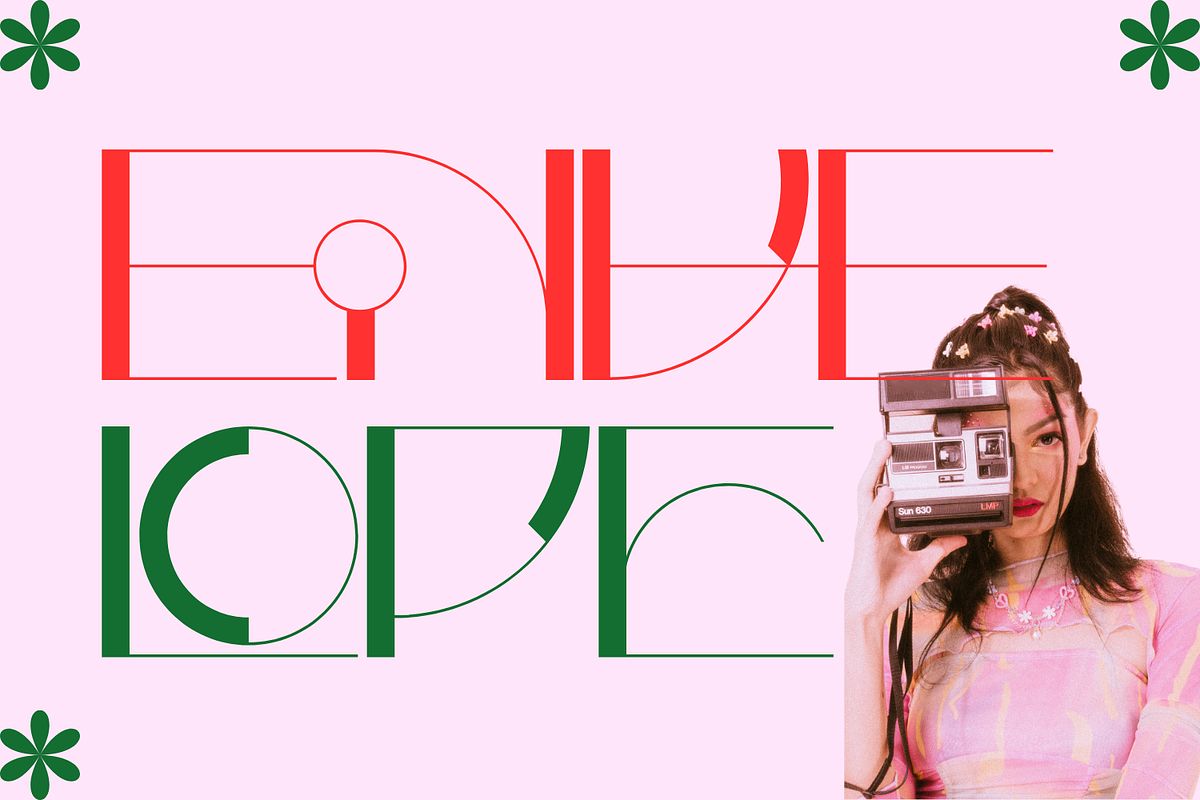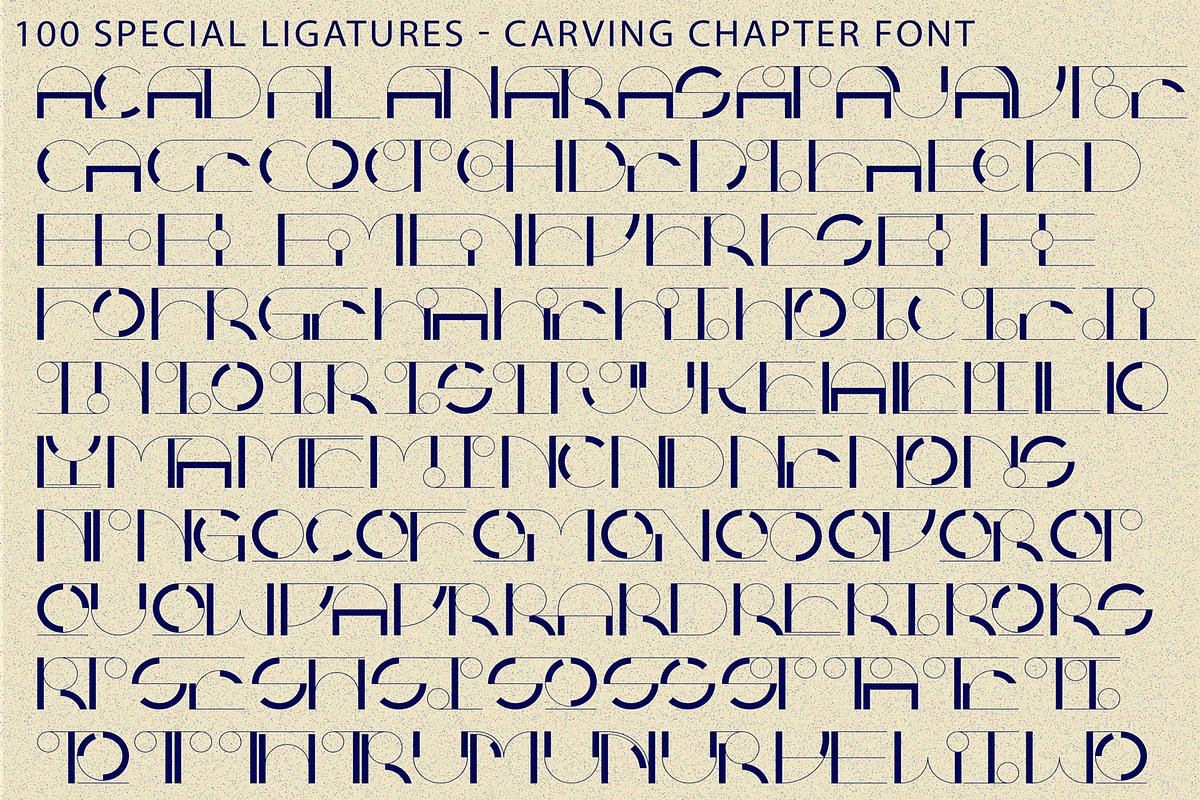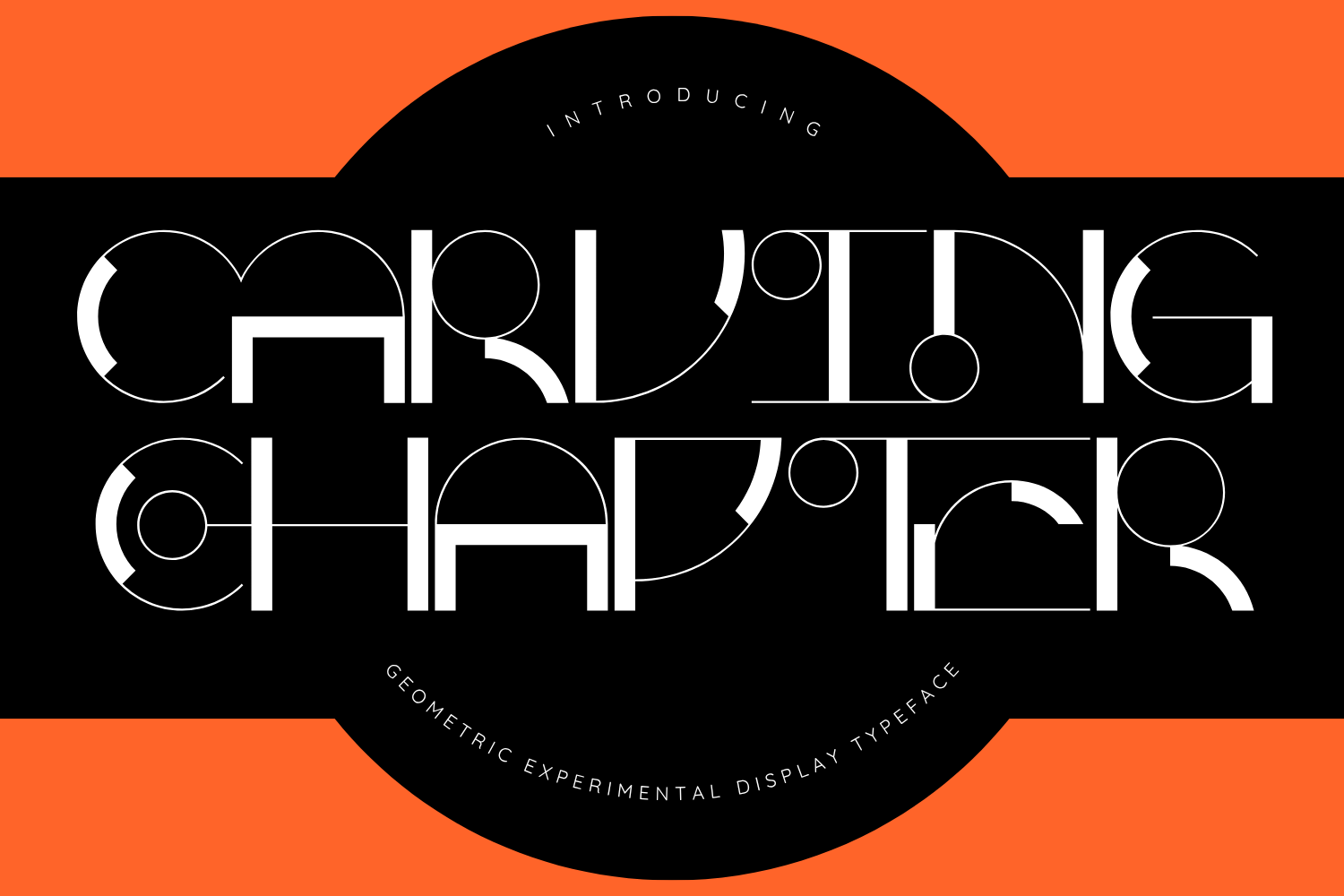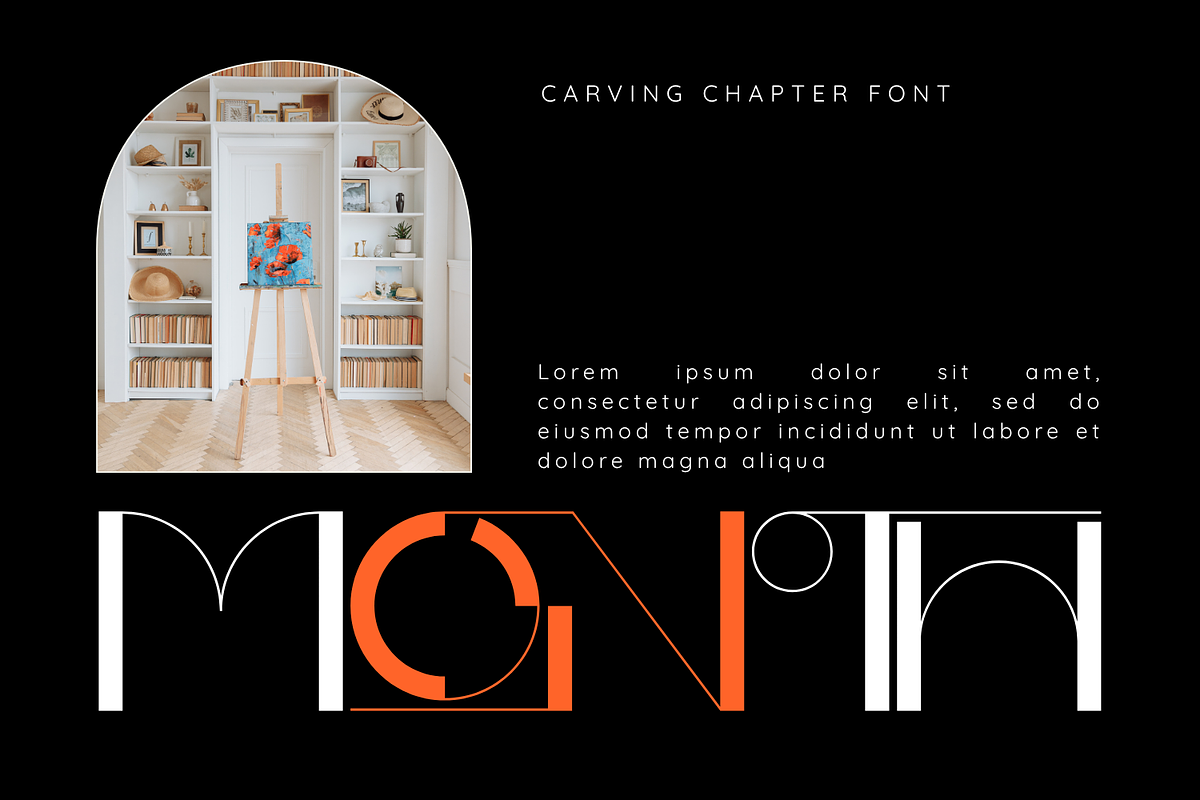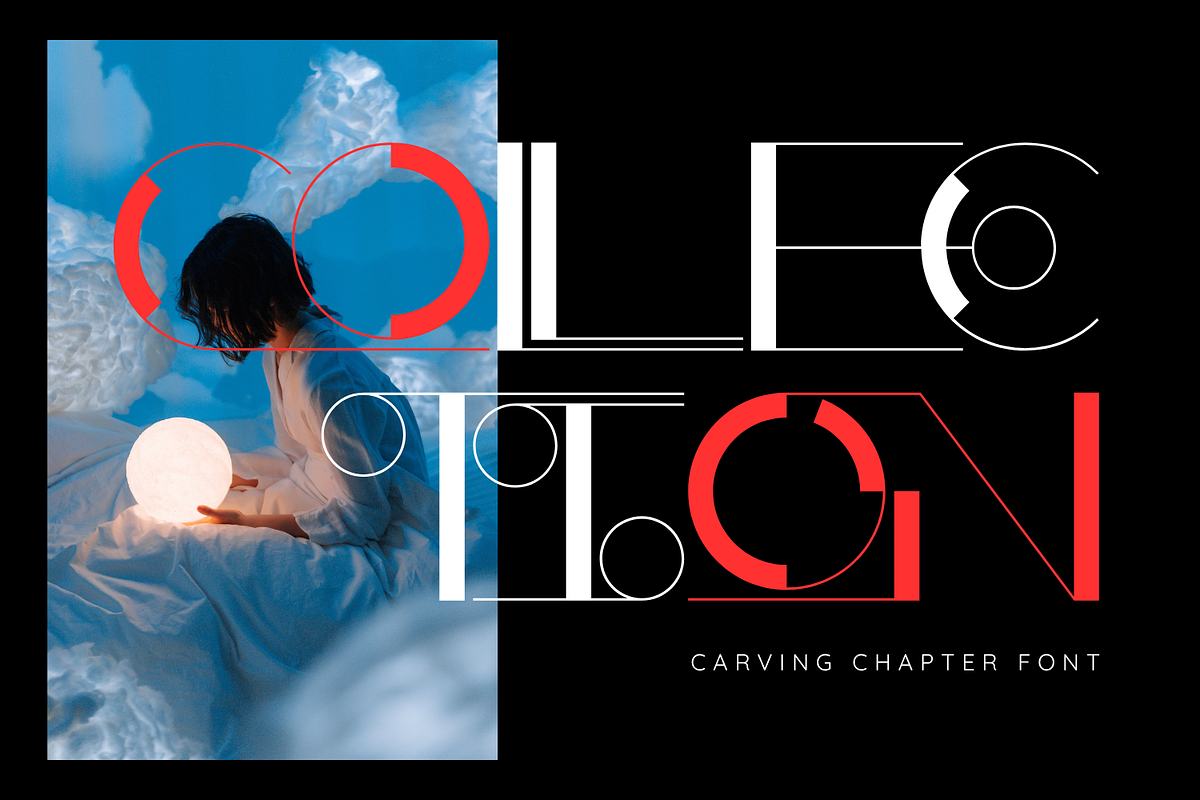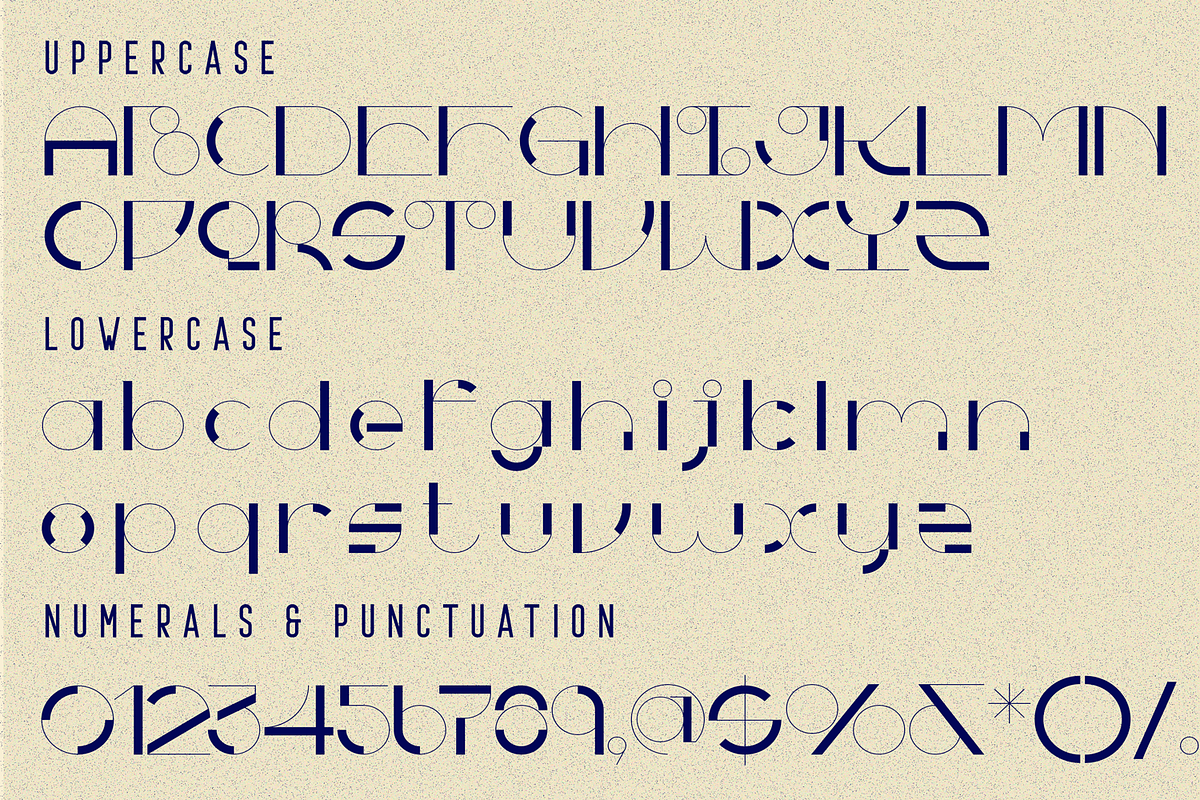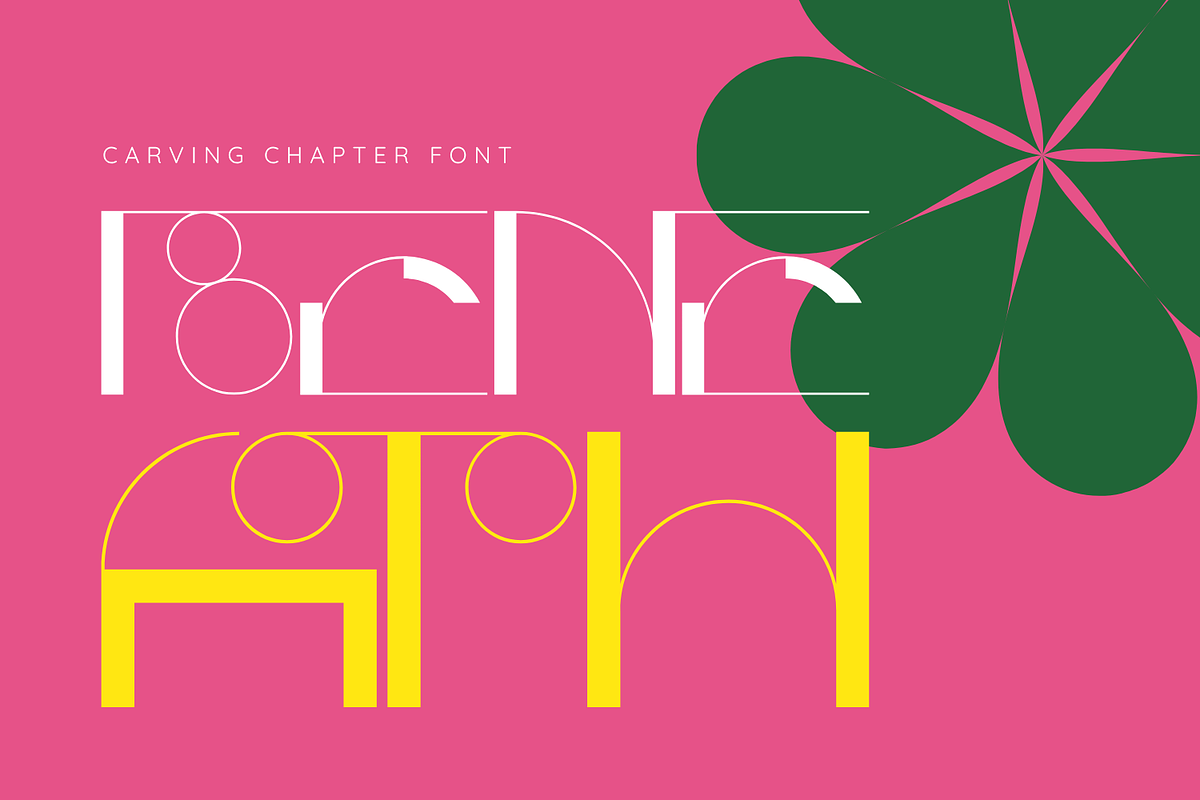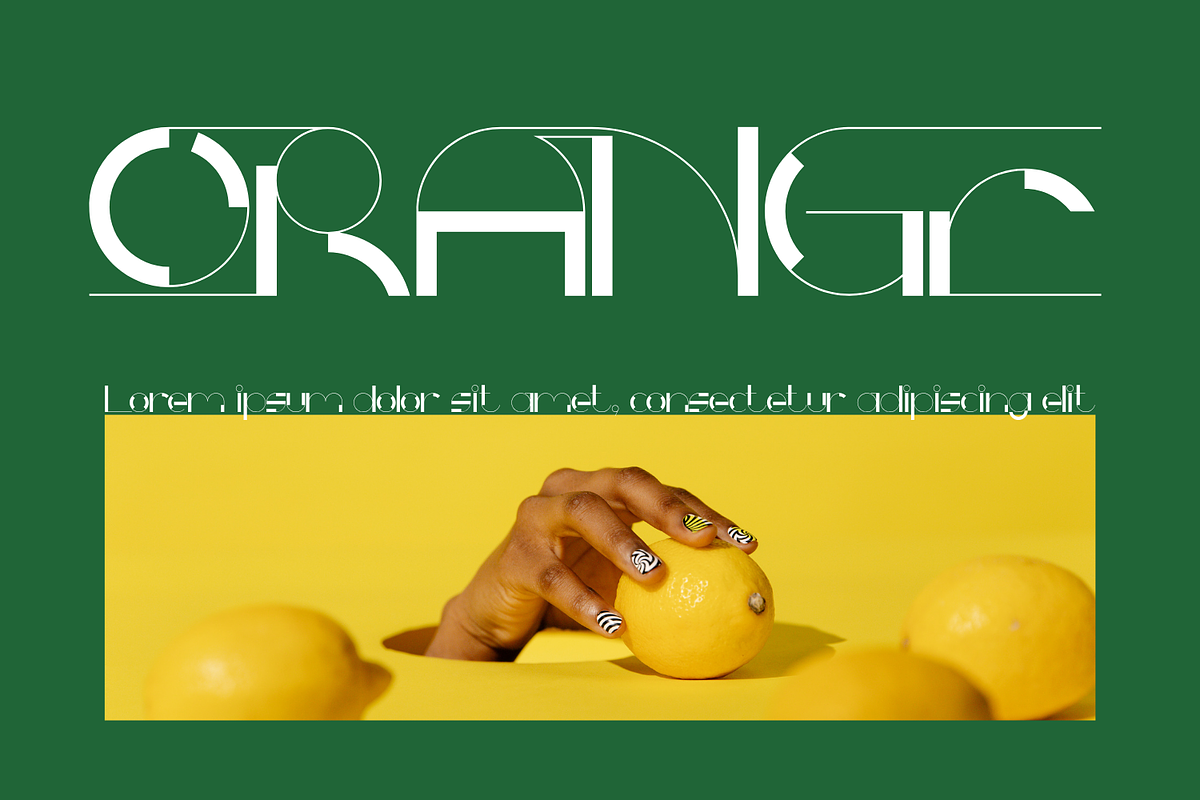
CARVING CHAPTER - ART DECO FONT
CARVING CHAPTER - ART DECO FONT is a modern Art Deco display font that blends geometric precision with refined decorative details. Built from elegant circles, clean vertical lines, and delicate architectural strokes, this typeface delivers a sophisticated balance between minimalism and luxury. Inspired by the glamour of classic Art Deco design and reimagined through a contemporary lens, CARVING CHAPTER features distinctive circular accents, ultra-thin ornamental lines, and beautifully structured letterforms that command attention without overwhelming the composition.
🔤Features:
Uppercase & Lowercase Letters
Around 100 Special Ligatures & Alternates
Accented Characters for multilingual support
🔤About 100 ligatures combined with Stylistic Alternates Font:
AC AD AL AN AR AS AT AU AV BE CA CE CH CO CT DE DI EA EC ED EE EL EM EN EP ER ES ET FE FO FR GE HA HE HI HO IE IC IL IN IO IR IS IT JU KE LA LE LI LL LO LY MA ME MI NC ND NE NG NO NT NS OC OF OM ON OO OP OR OT OU OW PA PR RA RD RE RI RO RS RT SE SH SI SO SS ST TA TE TH TI TO TR TT UM UN UR VE WI WO